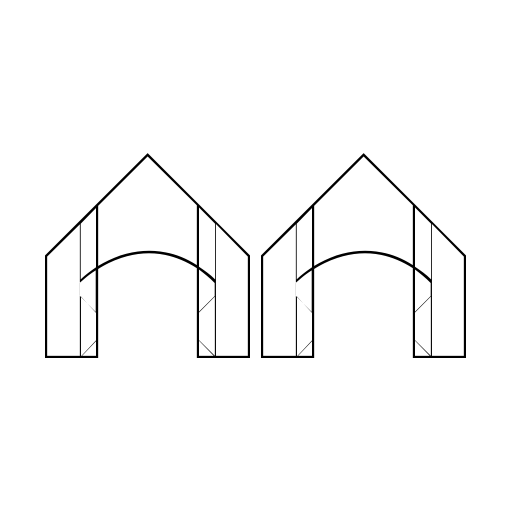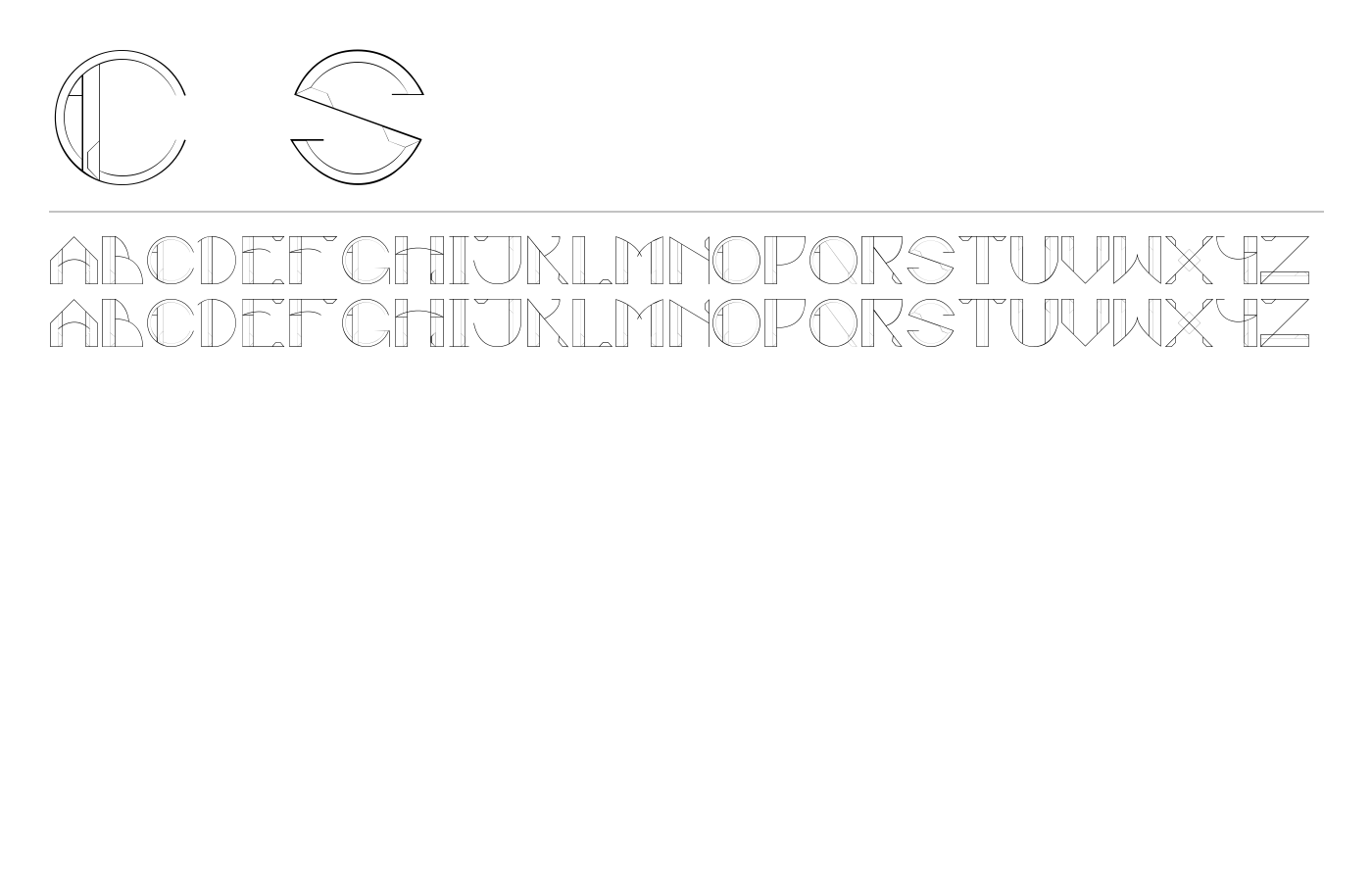
C/S Font is a unique, geometric sans serif with a modern and architectural feel. Its thin, outlined letterforms feature sharp angles and creative cutouts, giving it a futuristic and artistic personality ideal for display uses like logos, posters, and branding that seek a sleek, innovative edge. This font works best in large sizes where its intricate design can shine without losing legibility.
C/S Font